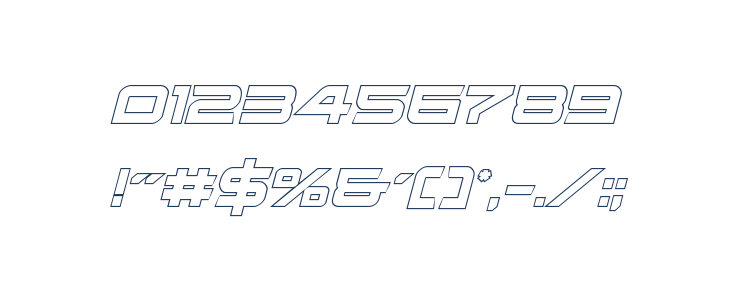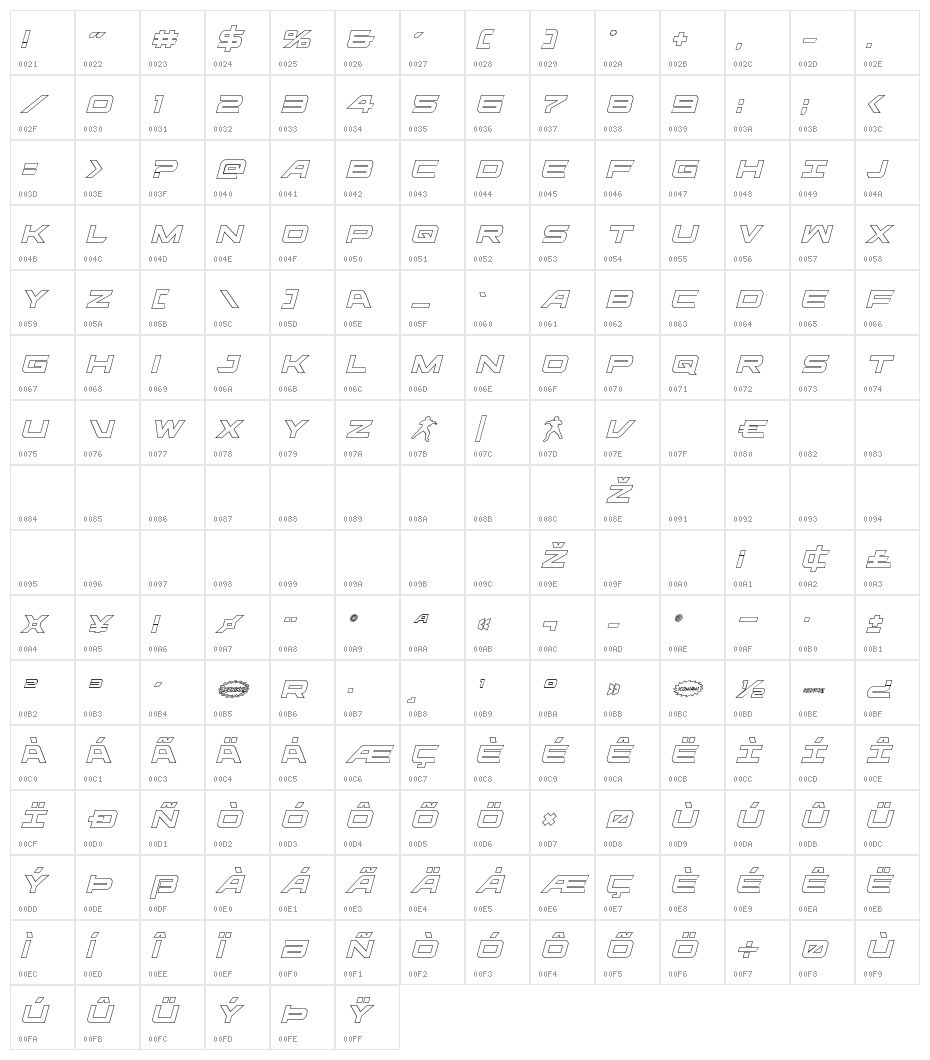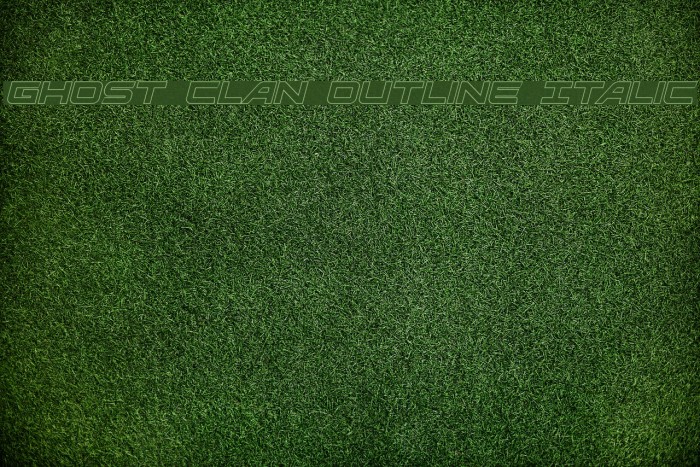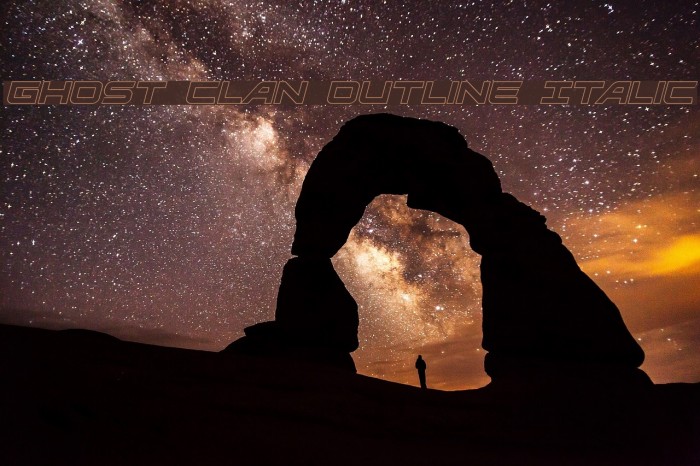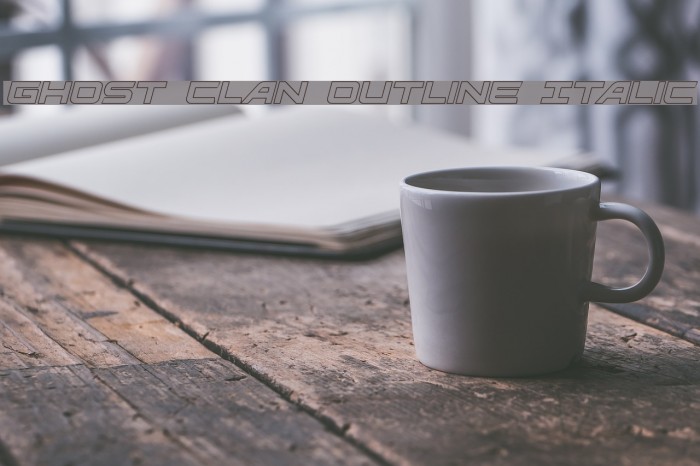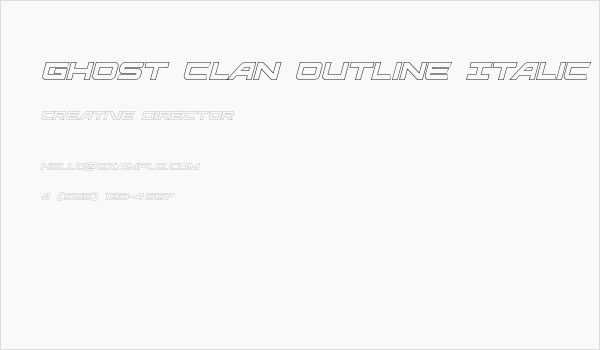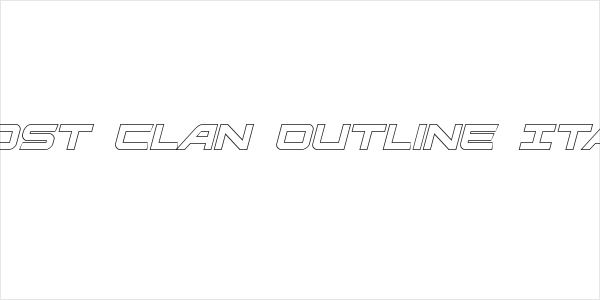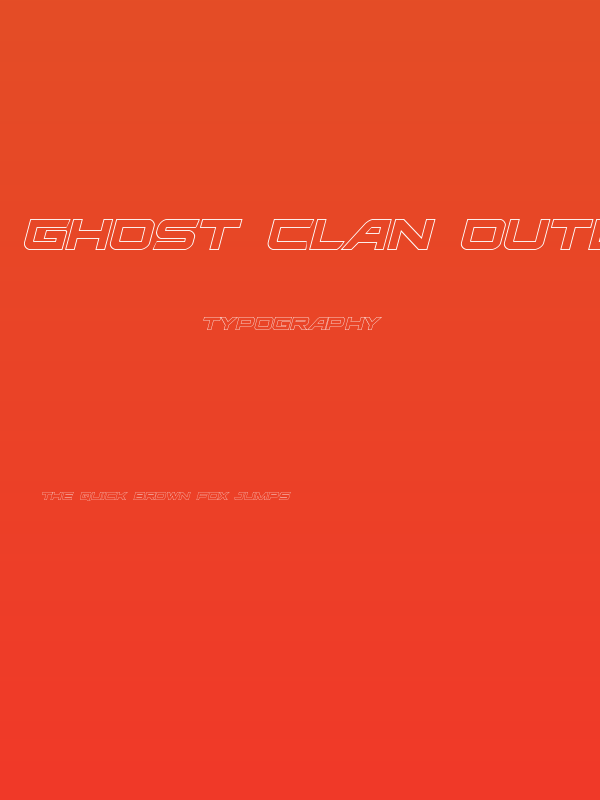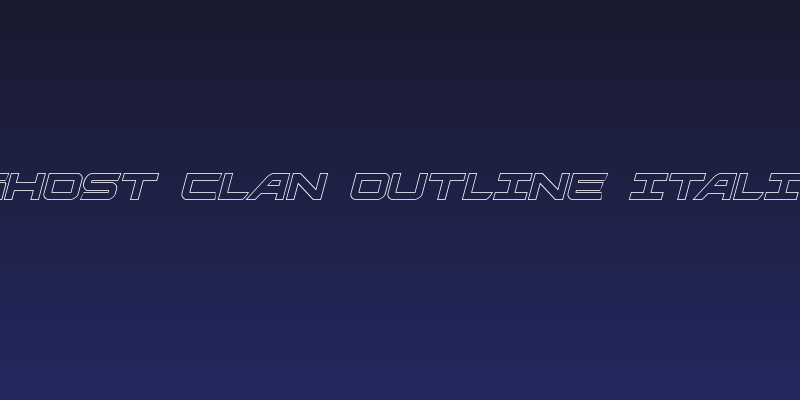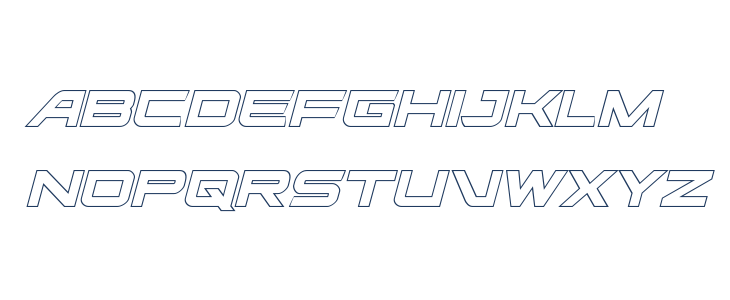
Ghost Clan Outline Italic Font
Ghost Clan Outline Italic Description
This font features a modern, outlined design with a distinct italic slant, giving it a dynamic and futuristic appearance. The characters are constructed with clean, geometric lines, creating a sense of movement and energy. The uppercase and lowercase letters maintain a consistent style, with sharp angles and a uniform stroke width. The numerals and special characters are designed to match the overall aesthetic, ensuring a cohesive look across all text elements. This font's outlined nature makes it ideal for creating striking visual effects, especially when layered over contrasting backgrounds.
| Proposed Projects | Ideal for futuristic branding, tech-related designs, sports team logos, and dynamic posters. |